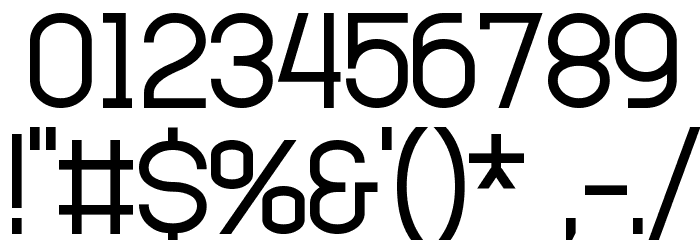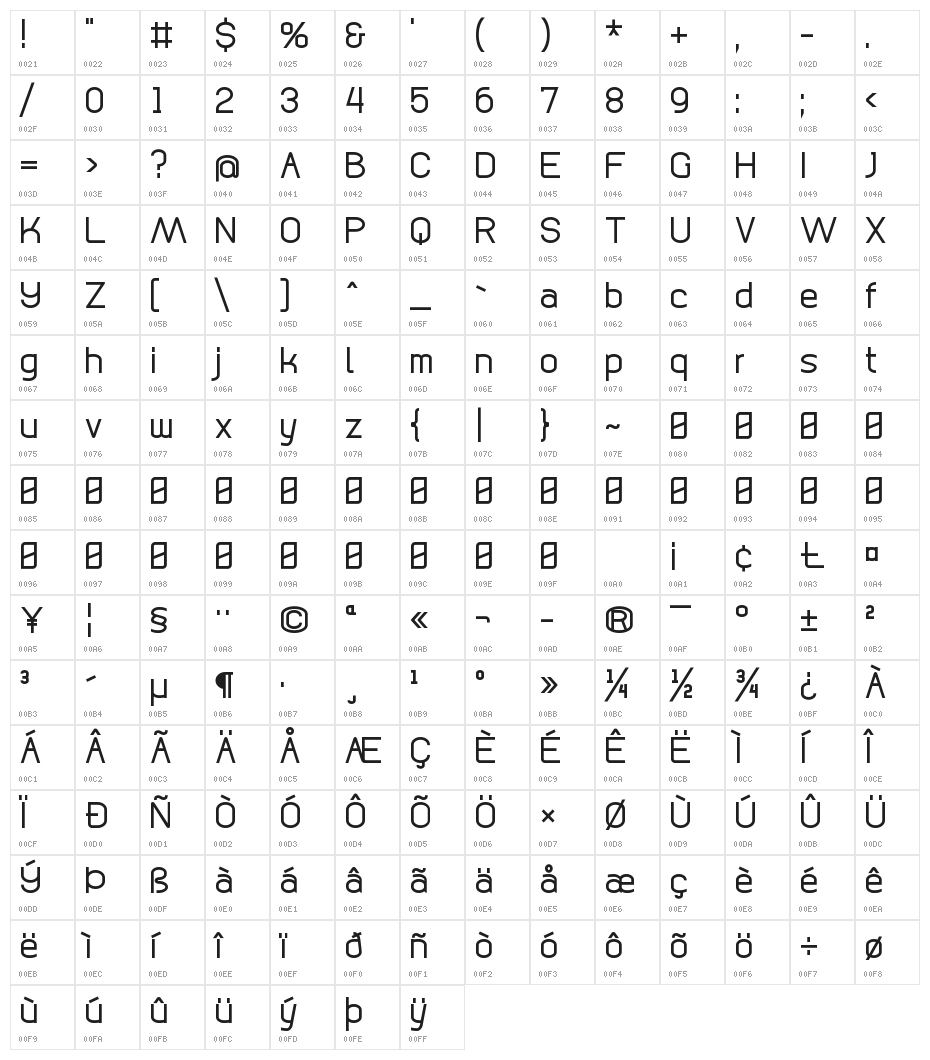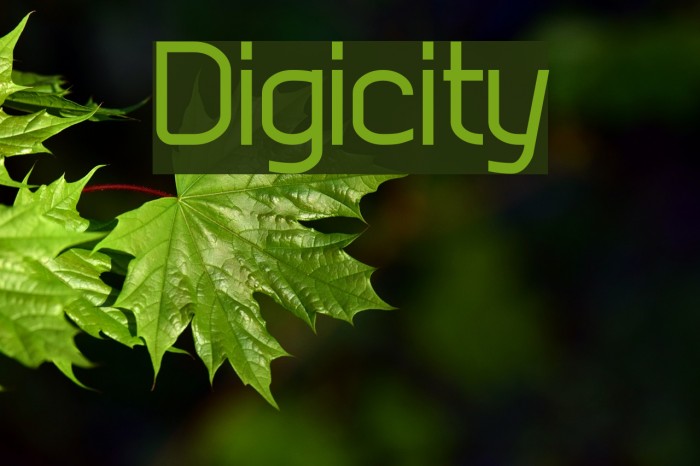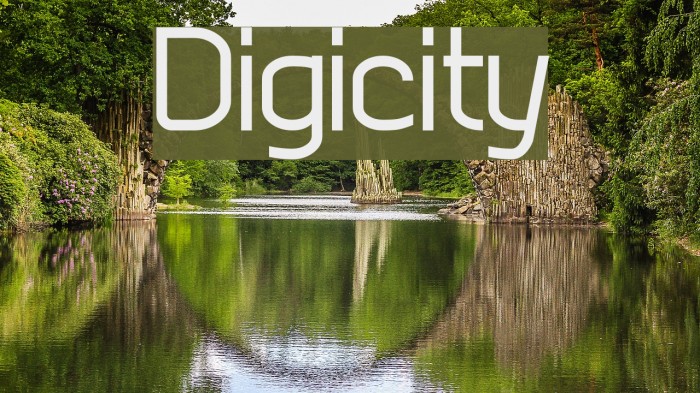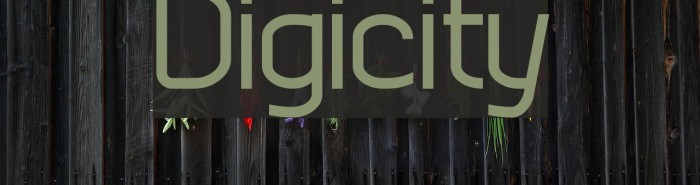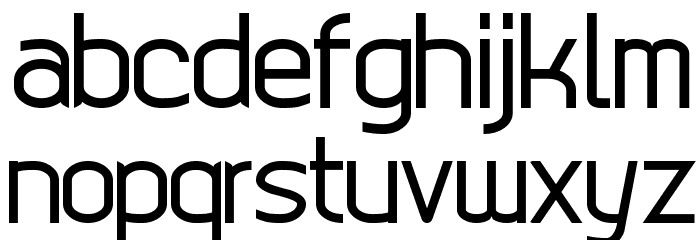
Digicity Font
Digicity Description
This font features a clean, geometric design with a modern aesthetic. The characters are constructed with consistent stroke widths, giving it a uniform appearance. The uppercase letters are bold and slightly condensed, while the lowercase letters maintain a similar width, creating a harmonious balance. The numerals are clear and legible, matching the style of the alphabetic characters. Special characters are well-integrated, maintaining the overall sleek and contemporary look. This font is versatile, suitable for both digital and print media, and its simplicity makes it highly readable.
| Proposed Projects | Ideal for tech branding, digital interfaces, modern advertising, and minimalist design projects. |